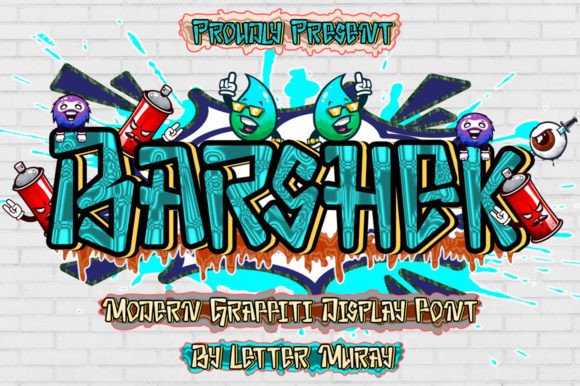
Adorn your designs with a touch of urban flair and artistic charm! Introducing Barshek Font, the ultimate display font that captures the essence of graffiti art. Crafted with meticulous precision by Letter Muray, this font is a masterpiece that will transform your designs into captivating visual expressions.
Let Barshek Font take you on a journey through the vibrant streets of imagination, where every letter dances with a unique personality. Its bold and playful strokes evoke a sense of freedom and creativity, making it the perfect choice for adding a touch of edginess to your projects.
With Barshek Font, you'll have a versatile tool at your fingertips, capable of elevating any creation to new heights. Whether you're designing posters, logos, album covers, or simply adding a touch of individuality to your social media posts, this font will leave a lasting impression.
Harness the captivating allure of Barshek Font to create art labels that demand attention. Its unique graffiti style will turn your labels into miniature masterpieces, attracting customers' eyes and leaving them eager to explore your products. Imagine your art labels adorned with Barshek Font, exuding a sense of exclusivity and artistic flair that sets your products apart from the ordinary.
The possibilities with Barshek Font are endless, allowing you to infuse your designs with a touch of urban grit, artistic elegance, or playful charm. It's a font that speaks to the creative soul, inviting you to break free from convention and embrace your unique artistic vision.
So, embark on a creative adventure with Barshek Font as your trusted companion. Let your imagination soar, and let this font be the catalyst for your most captivating designs yet. Experience the transformative power of Barshek Font today and unleash your artistic potential like never before!